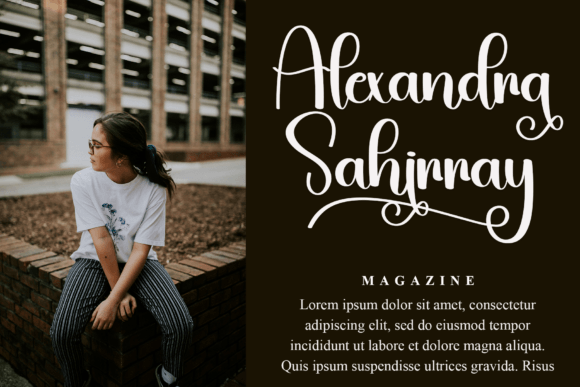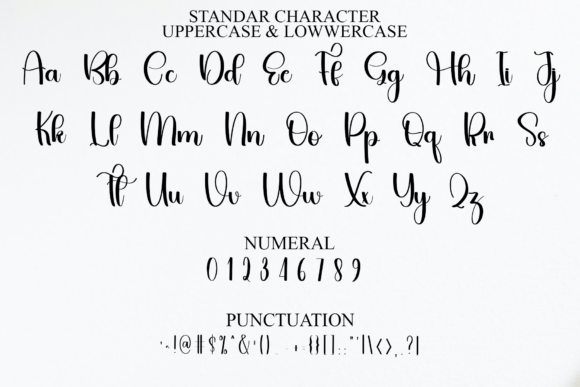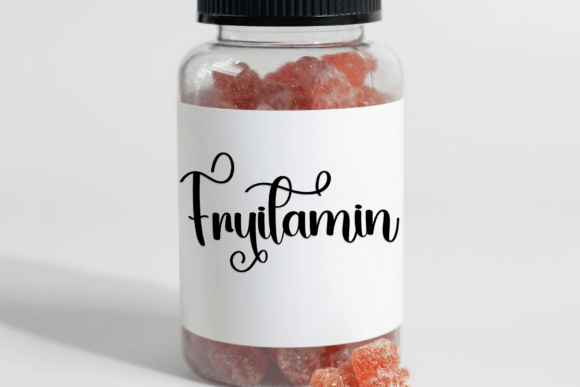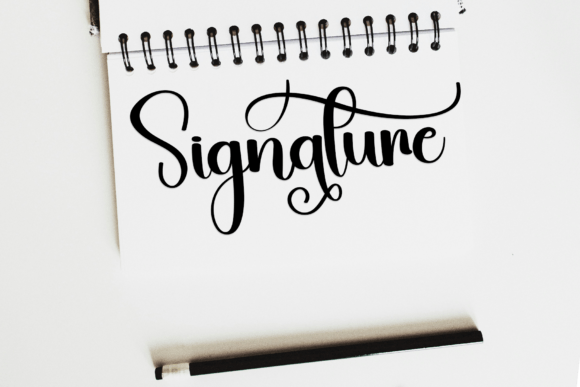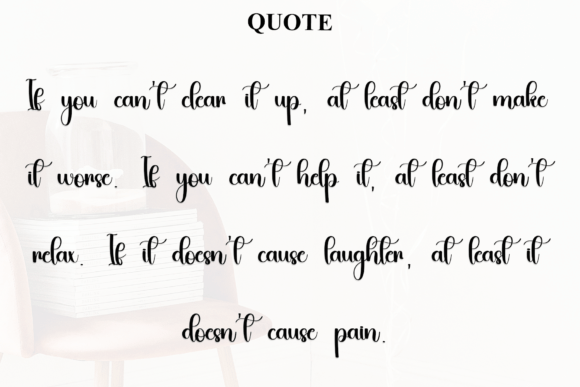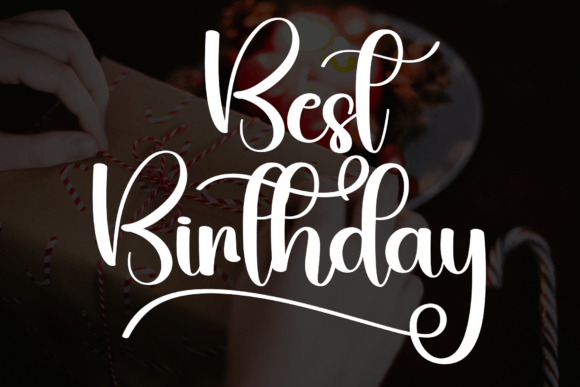
Deck the Halls with Elegant Typography: Introducing the Christmas Birthday Font
It’s that time of the year when creativity flows freely, and inspiration strikes like a jingle bell on a snowy night. You’re working on a special project, and the clock is ticking – but then, it hits you. The perfect font to elevate your design from ordinary to extraordinary. Enter the Christmas Birthday Font, a stunning typographic creation that embodies the essence of a timeless classic calligraphy.
This beautiful font is designed to add a touch of sophistication to your projects, making it a valuable asset for designers. With its PUA encoding, you can easily access the amazing glyphs and ligatures that make it truly special. Whether you’re working on a holiday-themed project or just want to add a dash of elegance to your designs, the Christmas Birthday Font is sure to impress.
Christmas Birthday Font Key Features
- Unique Characteristics: The font features a festive and celebratory design, making it perfect for Christmas and birthday-themed projects.
Designer Review: Christmas Birthday Font
At first glance, the Christmas Birthday Font seems like an interesting idea – a font that combines the cheer of Christmas with the celebration of a birthday. I appreciate the effort to create something unique and special for the holiday season.
- ✨ Unique concept: The font’s blend of Christmas and birthday elements is a refreshing twist on traditional font designs.
- ✨ Whimsical feel: The font’s playful and festive vibe makes it perfect for creating fun and lighthearted designs.
- ✨ Wide character set: The font includes a wide range of characters, including uppercase and lowercase letters, numbers, and punctuation.
- ⚠️ Limited font styles: The font only comes in one style, which may not be suitable for more formal or professional designs.
- ⚠️ Limited language support: The font may not include support for non-English languages, which could be a limitation for designers working on multilingual projects.
Overall, the Christmas Birthday Font is a fun and creative option for designers looking to add a festive touch to their projects. While it may have some limitations, its unique concept and playful feel make it a great choice for holiday-themed designs.